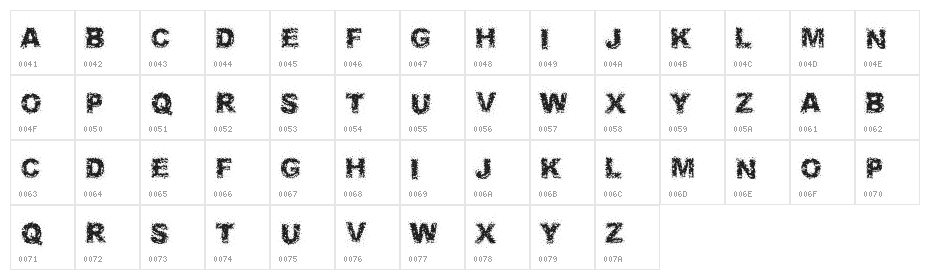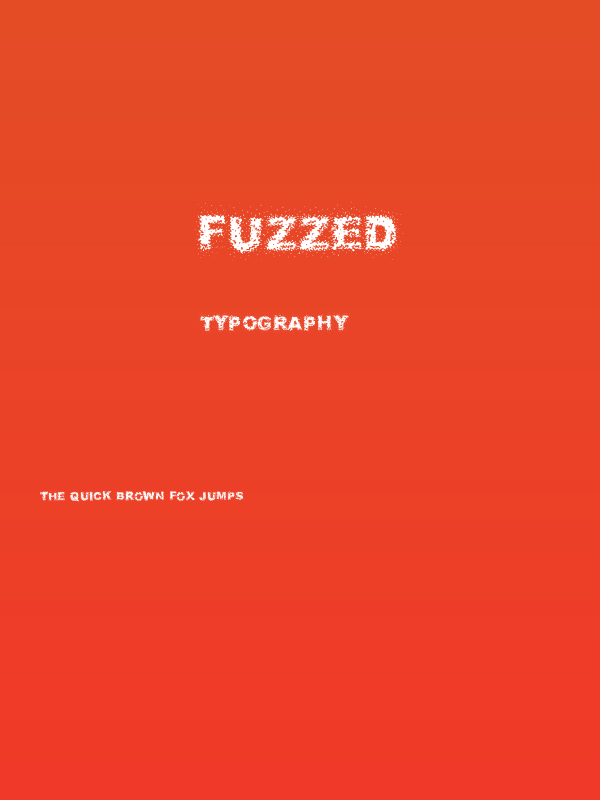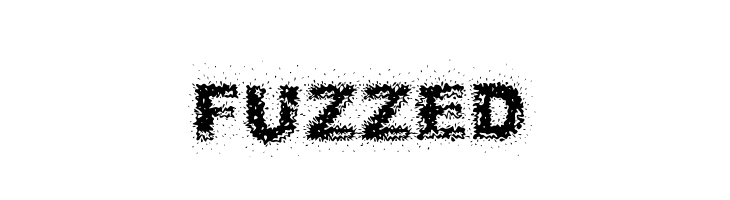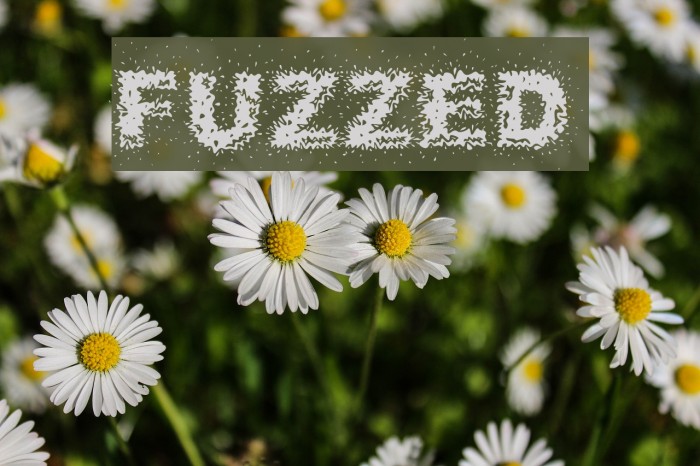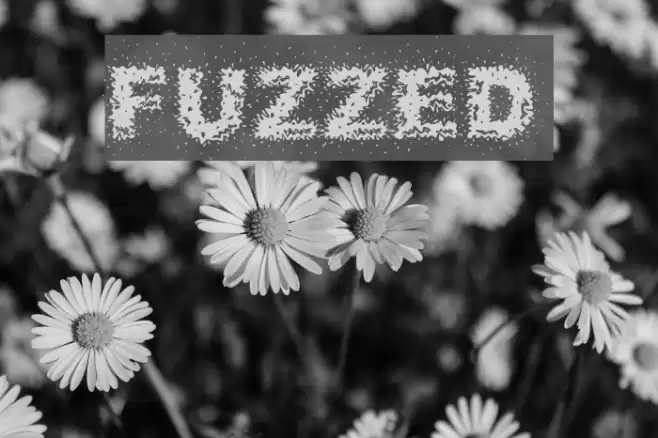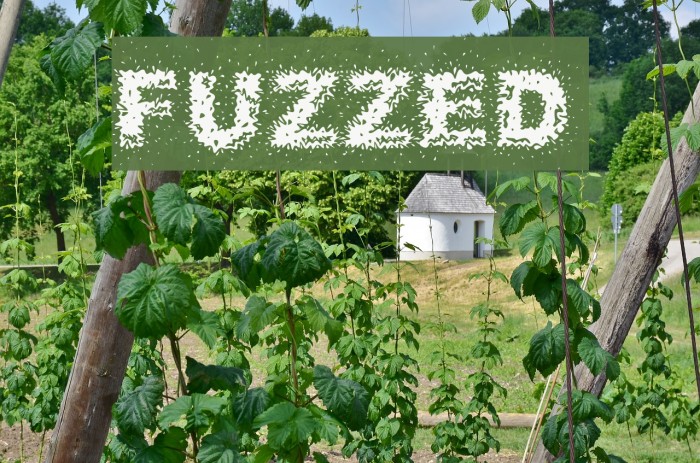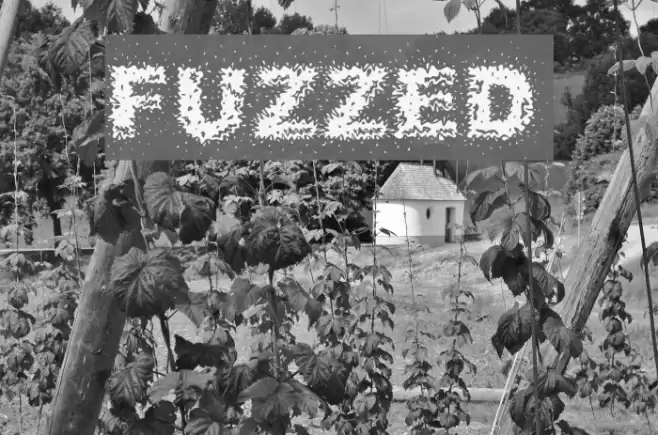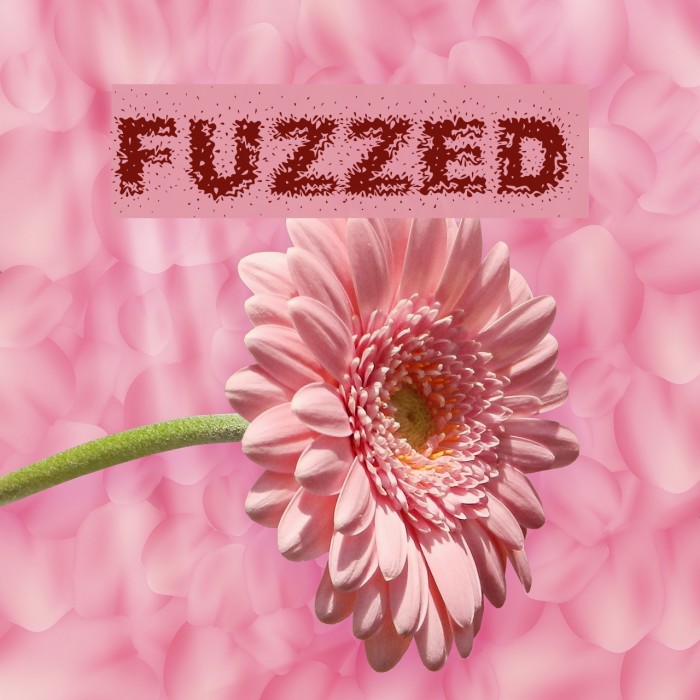
Fuzzed Font
Fuzzed Description
This font features a unique, distressed style with a fuzzy, textured appearance. The characters are bold and uppercase, with a consistent width and height across the alphabet. The texture gives it a gritty, almost spray-painted look, making it stand out in any design. The edges of each letter are irregular, adding to the overall rugged aesthetic. This font is particularly eye-catching and would be suitable for projects that require a bold statement or a grunge-inspired theme. Its distinct style makes it ideal for creative and artistic applications.
| Overall Style | Grunge, Artistic |
| Proposed Projects | Ideal for posters, album covers, street art designs, and any project needing a bold, grunge aesthetic. |